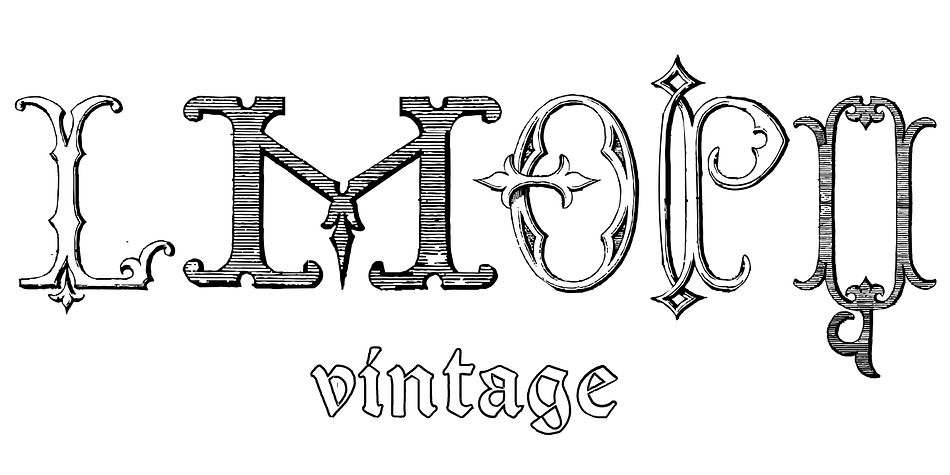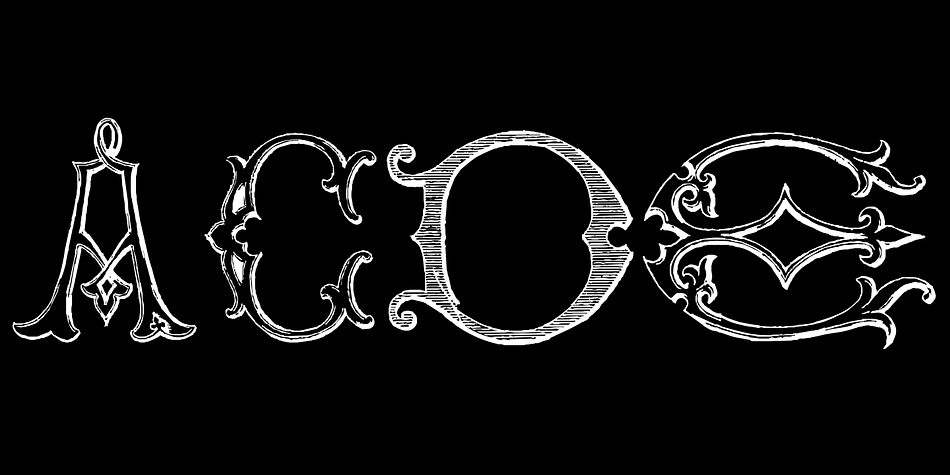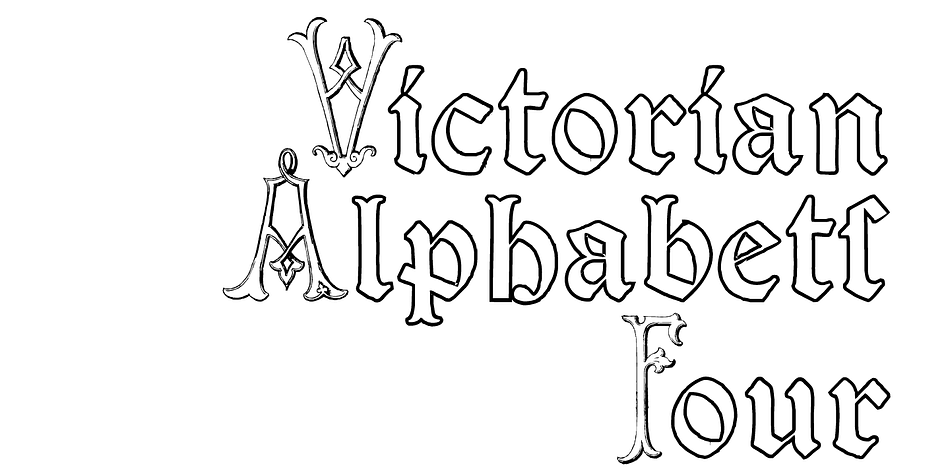
Victorian Alphabets Four
Victorian Alphabets Four is a blackletter and historical font published by Intellecta Design.
Victorian Alphabets is a increasing family of complete victorian style alphabets, researched and developed upon a comprehensive number of vintage books, magazines and catalogues from XIX century.